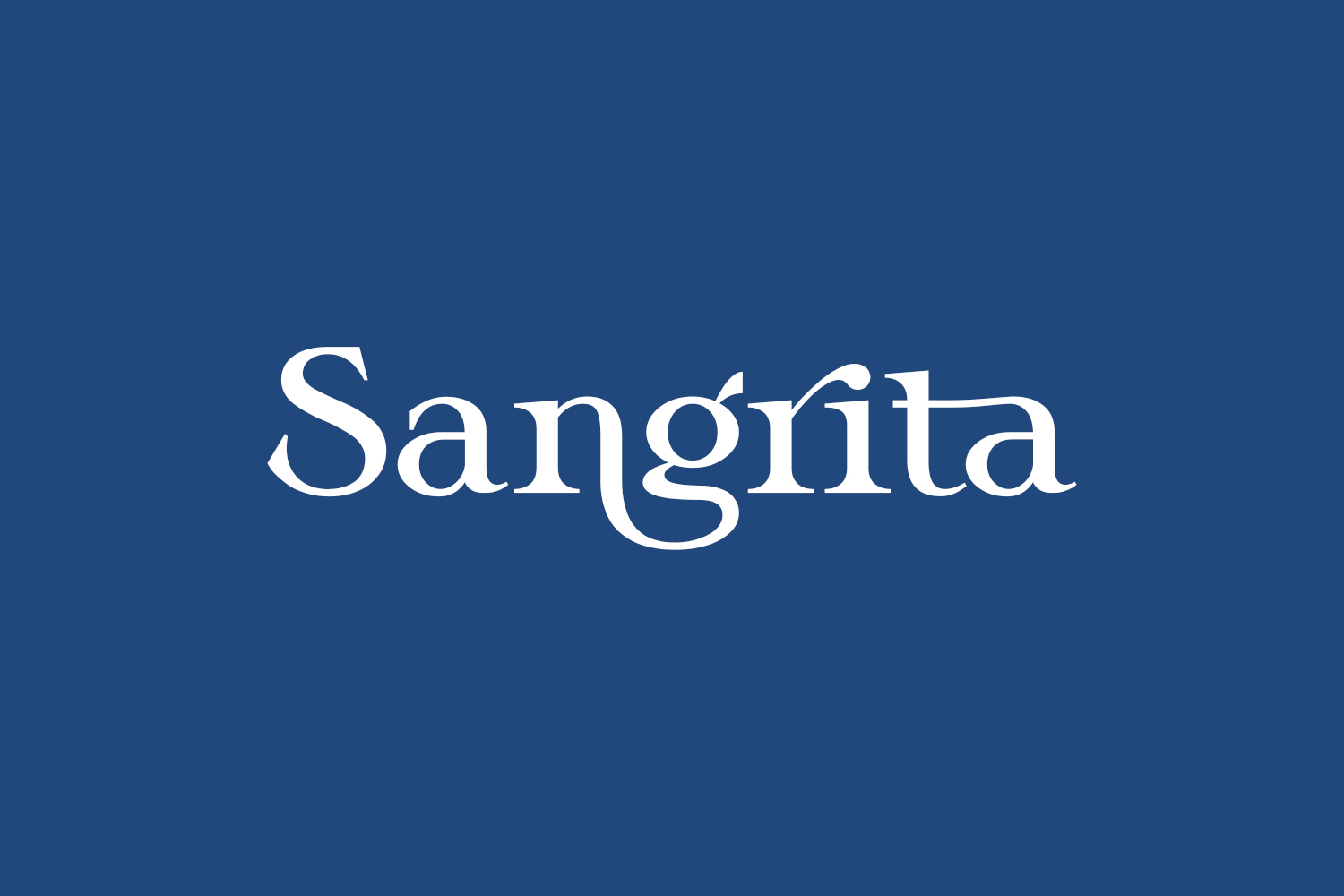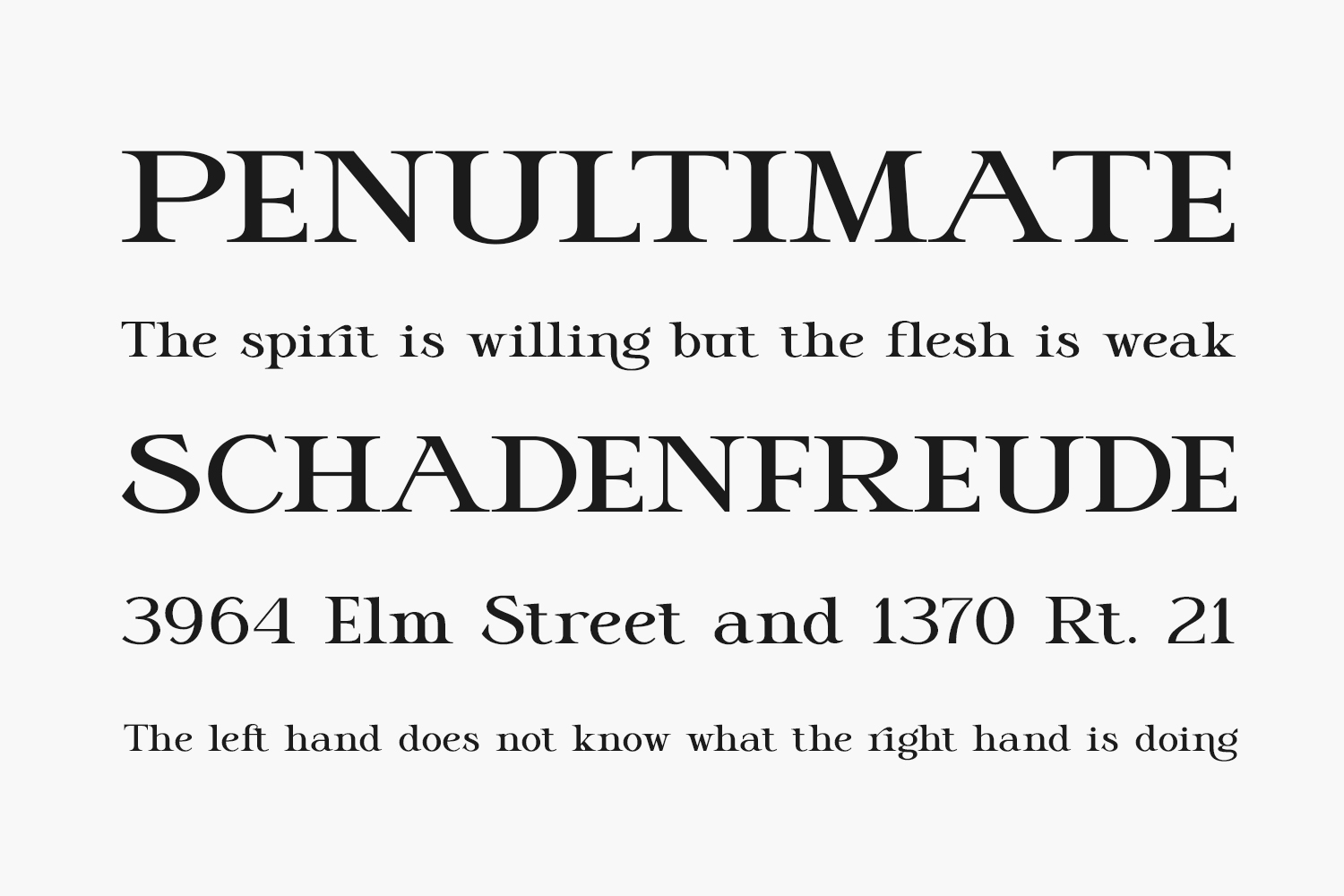
Sangrita Free Font is a playful and trendy serif font. Fall for its ravishing style and use it to create gorgeous wedding invitations, beautiful stationary art, eye-catching social media posts, and much more. Sangrita Free Font was designed by ToniStudio and is free for personal use only. Please purchase the full version for commercial use.